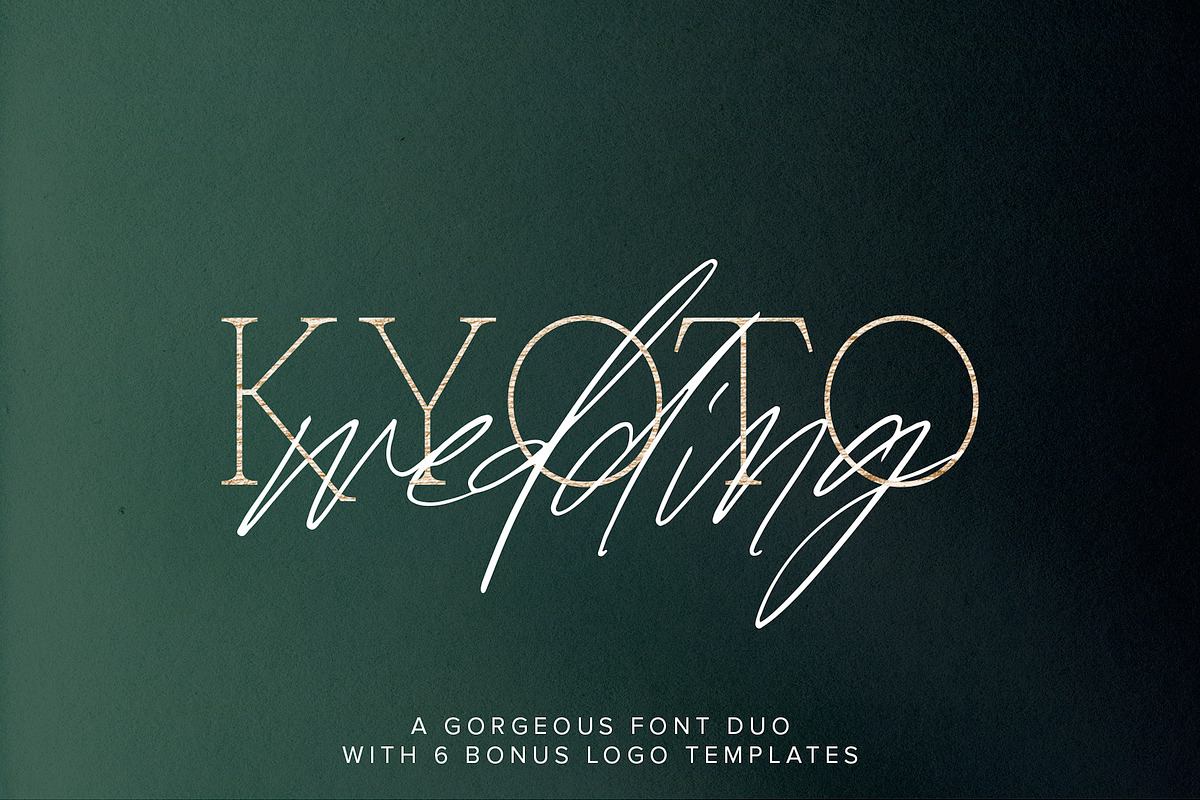
Please note, you must purchase this font for commercial use. However, you can easily download Kyoto Wedding Font Duo Free Download for personal use and testing purposes. Kyoto Wedding Font Duo is a beautiful and elegant font pair designed with sophistication in mind. Featuring a combination of a delicate script font and a classic serif typeface, this font duo is perfect for wedding invitations, branding, logos, and other elegant design projects. The script font adds a graceful, handwritten touch, while the serif font provides balance and readability. Kyoto Wedding Font Duo Free Download allows you to easily create a refined and harmonious design. Whether you're working on a luxury event or a romantic brand, this font duo will elevate your project with style and charm. Download Kyoto Wedding Font Duo Free Download today and explore its potential before opting for a commercial license.